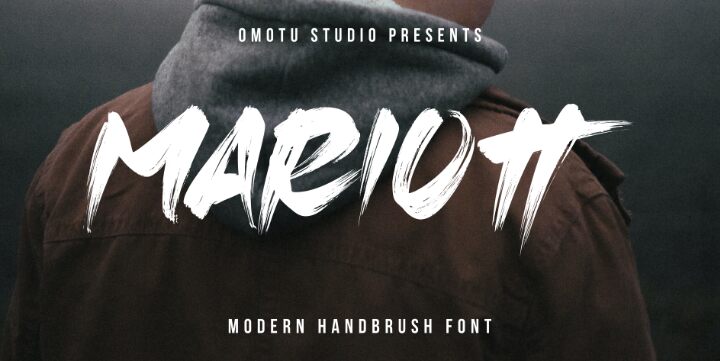
Mariott font, designed by Omotu Studio, is a captivating brush-style typeface that exudes boldness and artistic flair. The dynamic strokes and expressive curves give it an energetic and creative edge, making it perfect for headlines and branding that demand attention. This bold font’s dramatic appearance ensures every word is both impactful and stylish.
Ideal for creative projects such as posters, logos, and merchandise design, the Mariott font adds a personal touch to any visual content. Its free availability for download makes it accessible for designers looking to infuse their work with a unique artistic vibe. Elevate your designs with the Mariott font and experience the perfect blend of expressiveness and readability. Whether it's digital media or print design, this free font offers versatility while maintaining a striking presence.